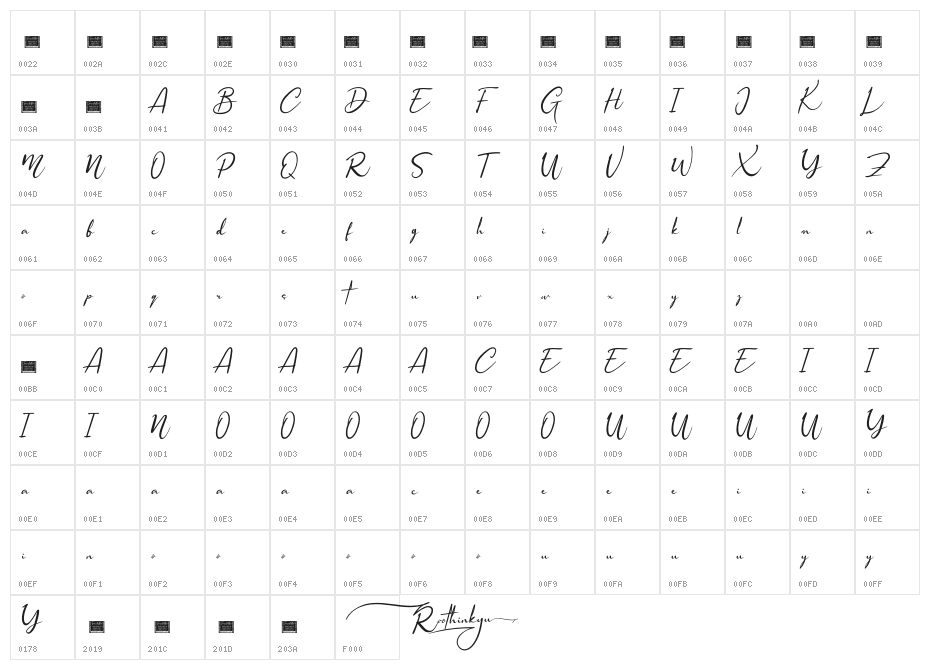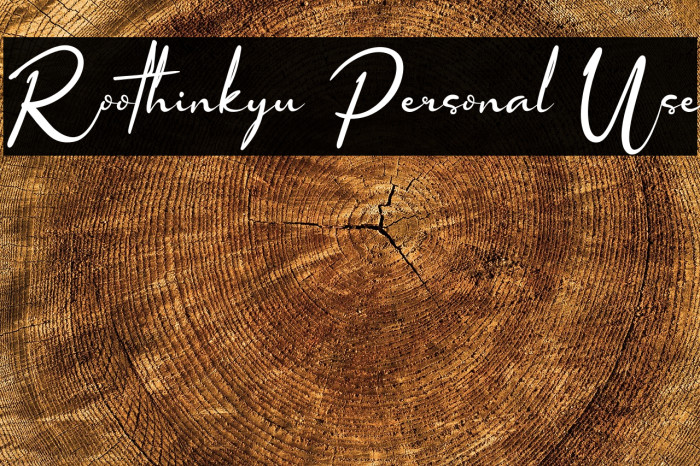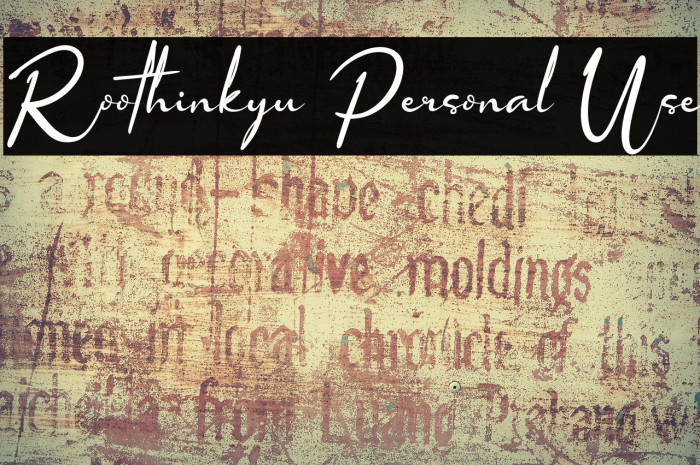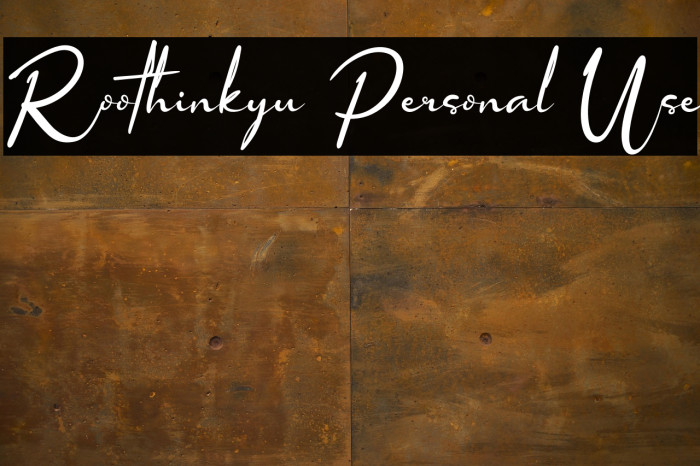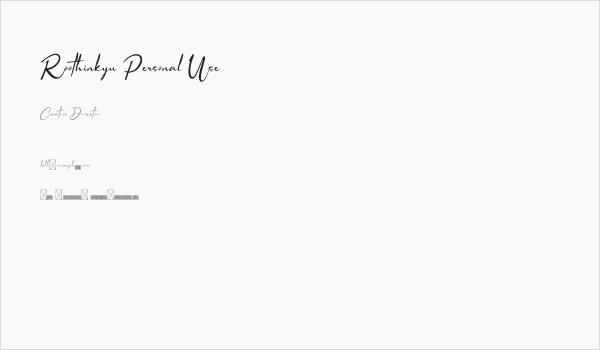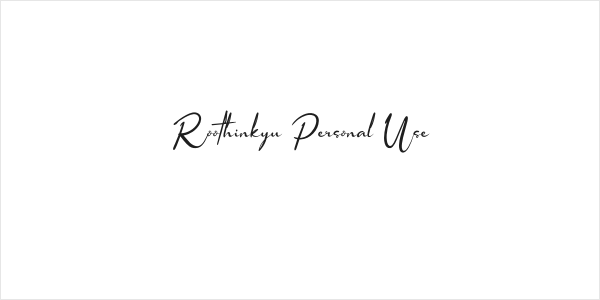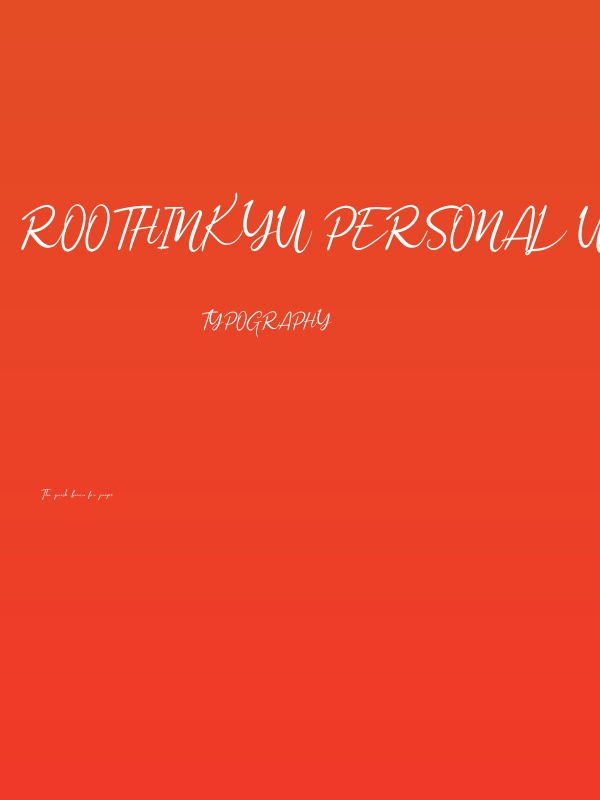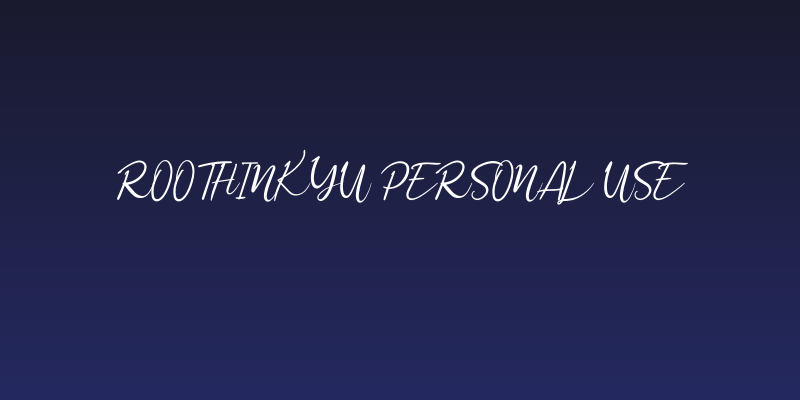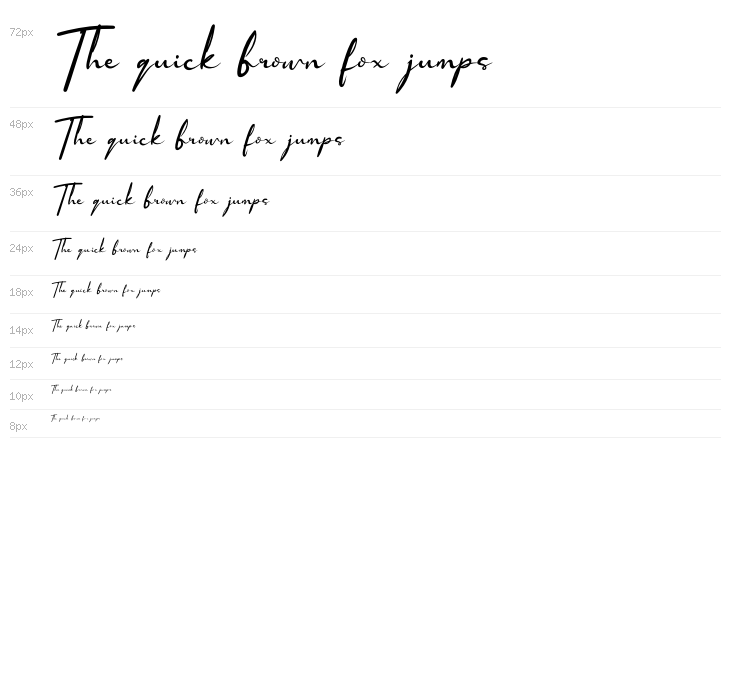
Roothinkyu Personal Use Font
Roothinkyu Personal Use Description
This font features a flowing, elegant script style with a handwritten appearance. The uppercase letters are characterized by sweeping curves and varying stroke widths, giving them a dynamic and artistic flair. The lowercase letters maintain a consistent style, with smooth connections between characters, enhancing the script's fluidity. The numerals and special characters are designed to complement the overall aesthetic, maintaining the same graceful and sophisticated look. This font is ideal for projects that require a personal touch, such as invitations, greeting cards, or branding materials.
| Overall Style | Elegant, Handwritten |